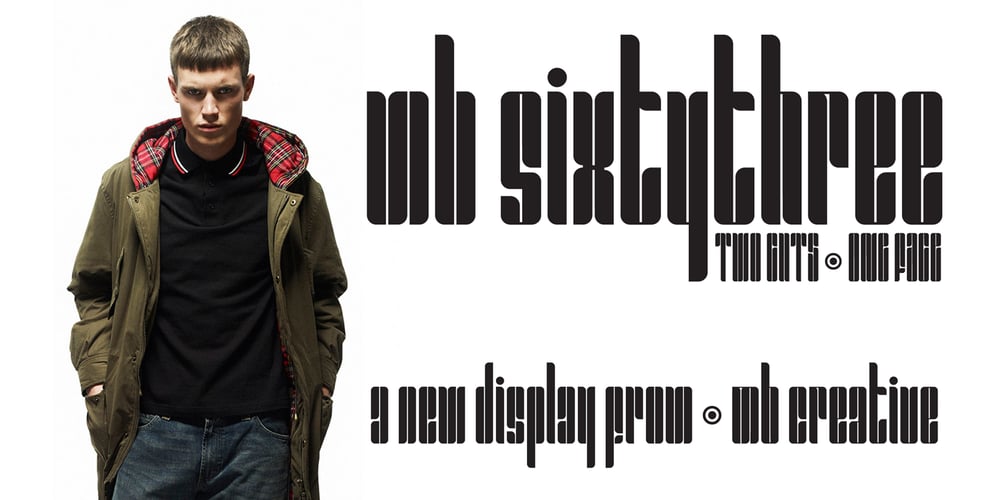
MB SIXTYTHREE Font Family was designed by Ben Burford and published by Ben Burford Fonts. MB SIXTYTHREE contains 2 styles and family package options. A heavy black display face with lots of retro ‘cool’. Modernist to the extreme MB SIXTYTHREE oozes ‘mod’ culture. Great for magazines & headlines, logotypes, posters, album artwork.